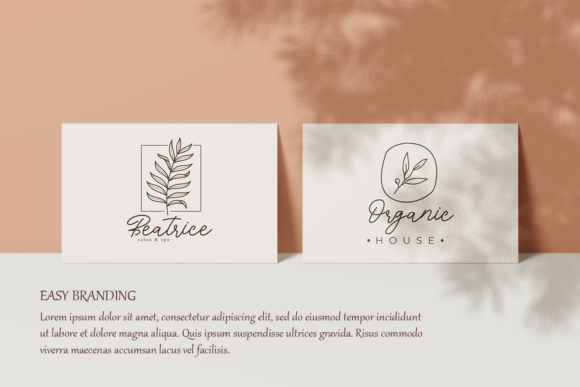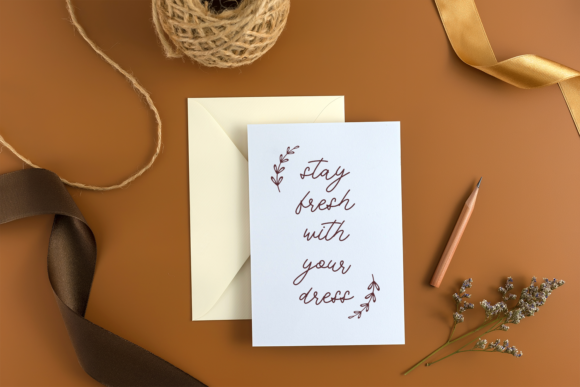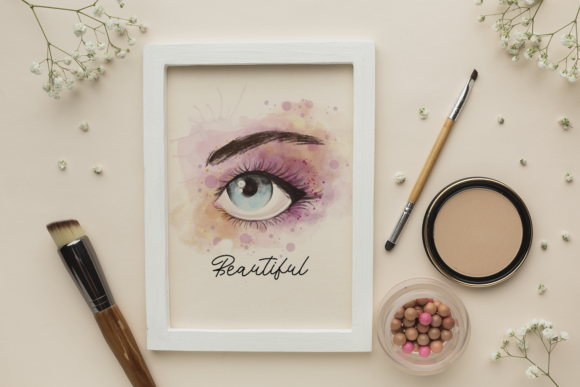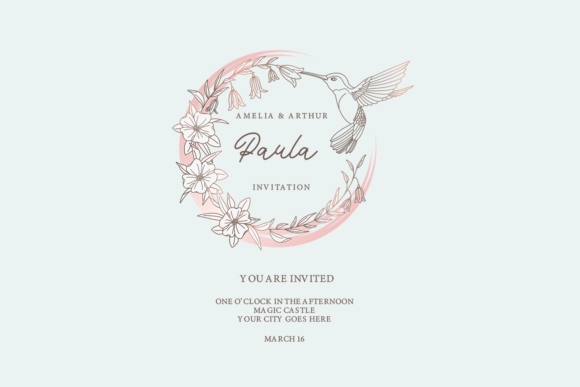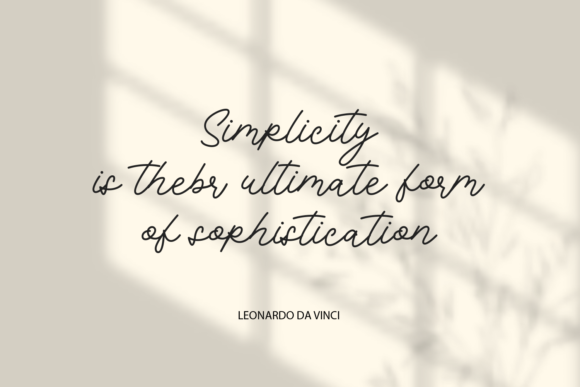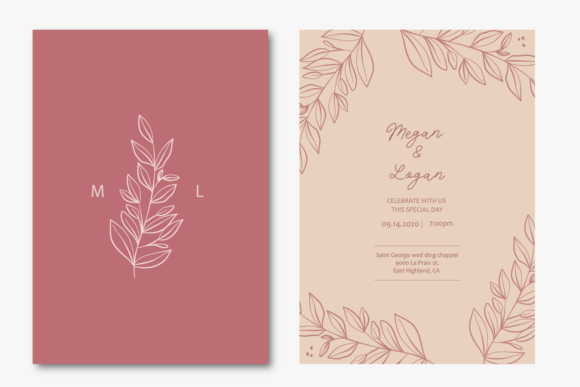
Introduction to Milky Berry Font
Do you remember the moment when a single font changed the entire vibe of your design project? For many creatives, this moment is a cherished memory that sparks inspiration and sets the tone for the rest of the project. For designers seeking a unique touch, we’re excited to introduce you to the enchanting Milky Berry Font, a flowing handwritten font that will transport your designs to a world of elegance and sophistication.
With its distinct and timeless style, the Milky Berry Font is an invaluable design resource that can elevate any creative project. Whether you’re working on a free download, a design concept with a transparent background, or a high-quality visual identity, this font is sure to make a lasting impression. Its versatility and sophistication make it a valuable asset for designers looking to add a touch of refinement to their work.
Key Features of Milky Berry Font
- Unique, cursive design perfect for creative projects requiring a whimsical touch
- Perfect for use in digital design, such as logos, graphics, and web design elements
Honest Review: Milky Berry Font
As a designer, I’m always on the lookout for unique and high-quality design resources to elevate my creative projects. Recently, I had the chance to work with the Milky Berry Font, and I must say, it’s a real gem.
- ✨ Beautiful, hand-drawn design that adds a touch of whimsy to any project
- ✨ High-quality vectors that are perfect for scalable designs
- ⚠️ Limited character set, which may not be ideal for longer texts or complex content
- ⚠️ May not be suitable for formal or professional projects, as it has a more playful and casual feel
Overall, I’m really impressed with the Milky Berry Font. It’s a great addition to any designer’s toolkit, and I can see it being used in a variety of creative projects, from social media graphics to children’s book illustrations. If you’re looking for a fun and unique font, I’d definitely recommend giving it a try.
The Milky Berry Font is perfect for use in a variety of creative projects, including blog posts, social media graphics, presentations, and marketing materials. Its high-quality design and transparent background make it a great design resource for anyone looking to add a professional touch to their work.
Is the Milky Berry Font a high-quality font?
Yes, the Milky Berry Font is a high-quality font designed to meet the needs of designers and artists. It features a unique and creative design, with a transparent background option that makes it perfect for designing on a transparent background. Our font is designed to be scalable and legible, making it suitable for a wide range of design projects.